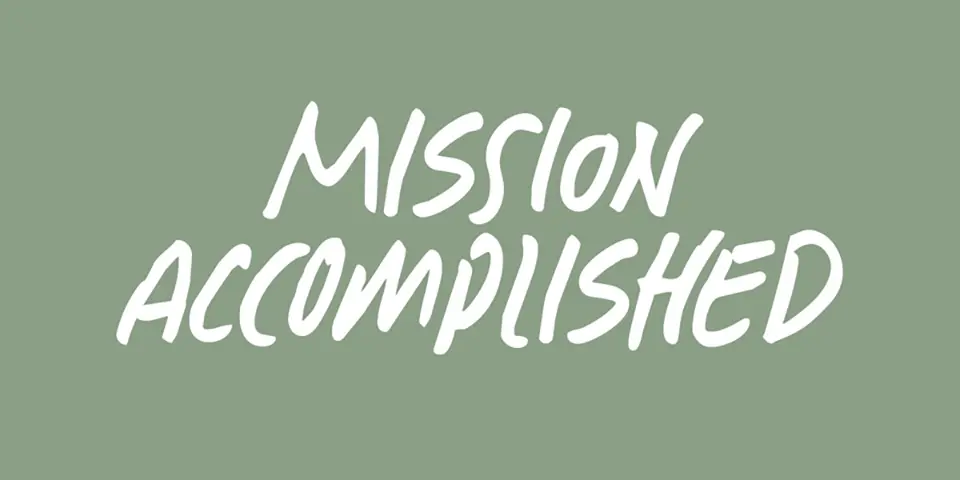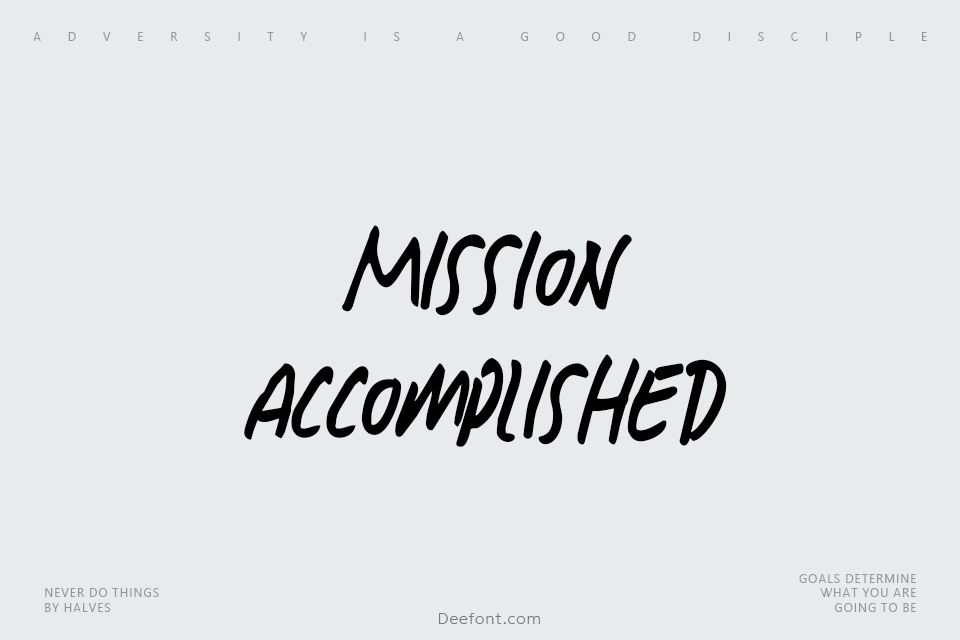
Mission Accomplished Font
Mission Accomplished is a dynamic handwritten script font created with fast marker pen strokes, capturing energetic and spontaneous letterforms. This playful typeface features flowing curves and casual character, making it ideal for packaging, labels, and creative designs. With its brush-like quality and distinctive handmade aesthetic, the font delivers an informal yet expressive typographic style perfect for contemporary branding and artistic projects.